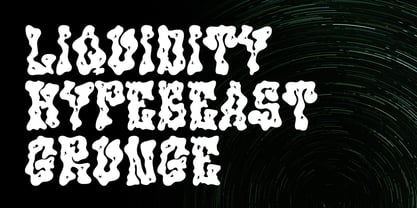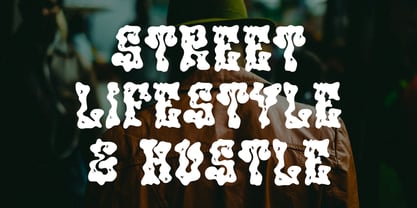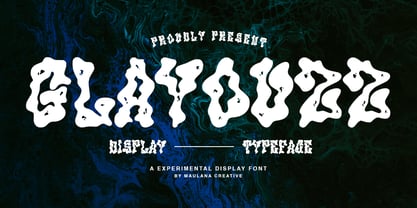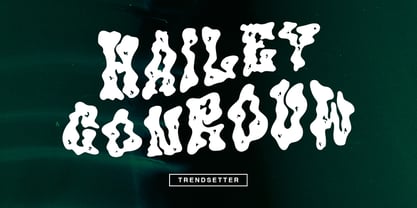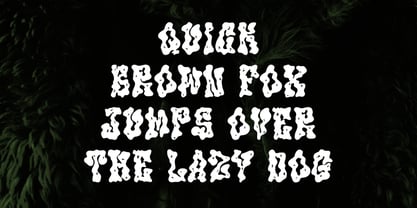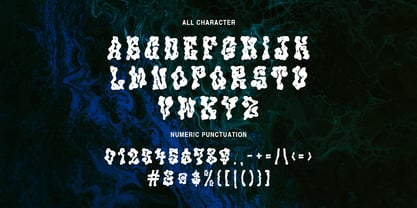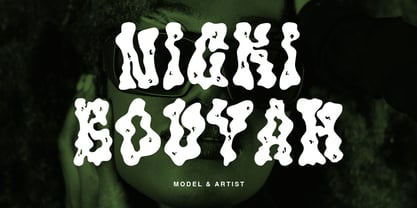
MC Glayouzz
by Maulana Creative
The MC Glayouzz Font Family was designed by Gilang Maulana and published by Maulana Creative. MC Glayouzz contains 1 styles. More about this family
Glayouzz is a experimental handmade display font. With bold stroke and fun character. To give you an extra creative work. Glayouzz font support multilingual more than 100+ language. This font is good for logo design, Social media, Movie Titles, Books Titles, a short text even a long text letter and good for your secondary text font with sans or serif. Make a stunning work with Glayouzz font.
Designers: Gilang Maulana
Foundry: Maulana Creative